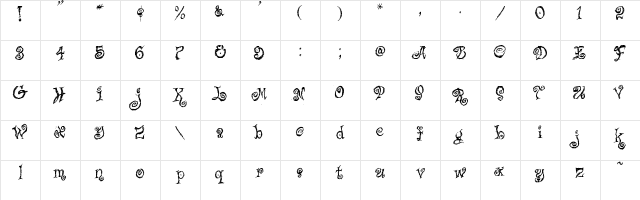
Caffe Latte Regular
Design Context for Caffe Latte
Caffe Latte is a composed and adaptable typeface that performs quietly and consistently across a wide range of design contexts.